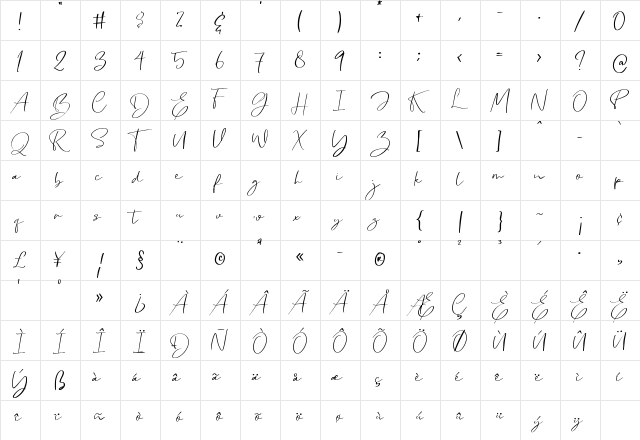
Cllarin Regular
Design Context for Cllarin Typeface
Cllarin is a composed and adaptable typeface that performs quietly and consistently across a wide range of design contexts.
Pro Tip: Pair Cllarin with a font of contrasting weight or personality to build a more expressive typographic hierarchy.